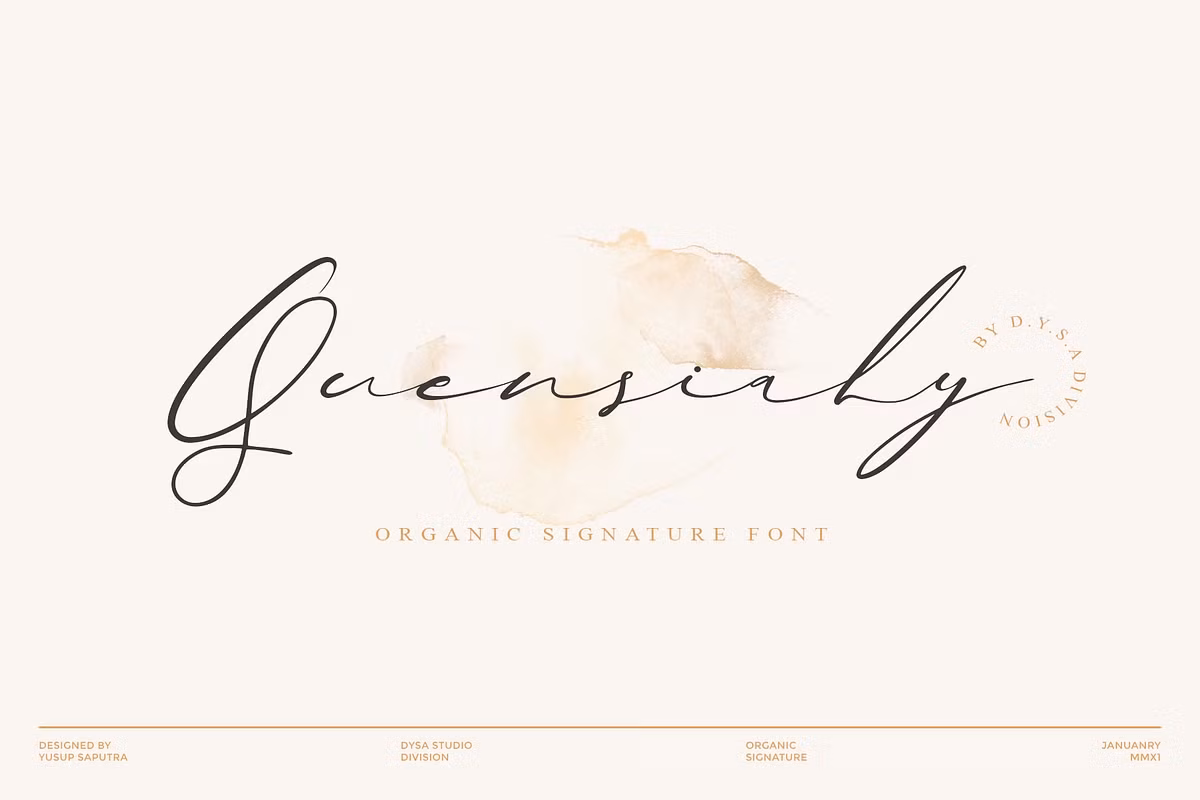
Please note, you must purchase this font for commercial use. However, you can easily download Quensialy Font Free Download for personal use and testing purposes. Quensialy Font is an elegant and sophisticated typeface designed to add a touch of refinement to your projects. With its sleek, modern design and beautiful curves, this font is perfect for high-end branding, invitations, logos, and editorial designs. Whether you're working on a luxury brand identity, a stylish wedding invitation, or a creative logo, Quensialy Font Free Download will elevate your typography with grace and class. Download Quensialy Font Free Download today and explore its potential before opting for a commercial license.